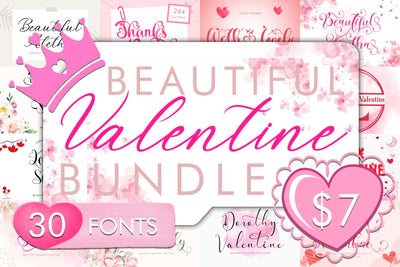
Valentine Beautiful Bundle
This bundle contains 30 beautiful fonts :
- Beautiful Aletha
- Adella Spring
- Airlove
- Alestha Butterfly
- Amalia Valentine
- Amelia Santa
- Angelia Valentine
- Antikan Rayo
- Beautiful Agatha
- Beautiful Spring
- Bertha Lovely
- Best Christmas
- Bethany Love
- Bethy Valentine
- Bettaria Spring
- Brigitha Valentine
- Charlotte Melody
- Christmas Bonitha
- Curly Valentine
- Dorothy Spring
- Dorothy Valentine
- Lovely Style
- Lovely Valentine Monogram
- Neirra Spring
- Pink Valentine
- Thanks Beauty
- Valentine Blackletter
- Valentine Style
- Welisha
- With Lovely
This bundle is perfect for a variety of projects such as christmas, halloween, fall, autumn, back to school, weddings, designs, branding, logos, invitations, stationery, social media posts, advertisements, product packaging, product designs, labels, photography, valentine, easter, mother day, father day, watermarks, special events or whatever.